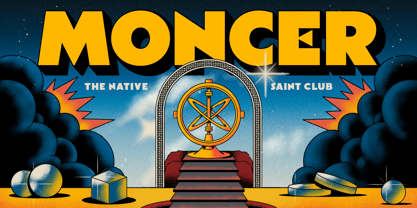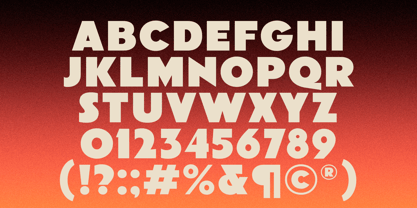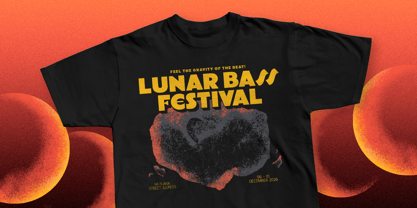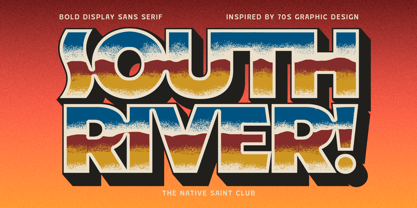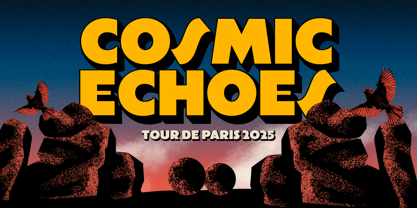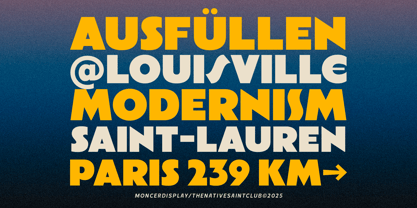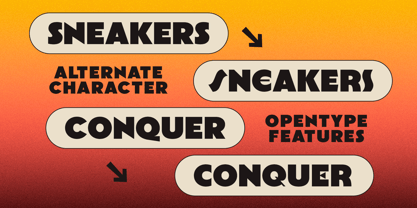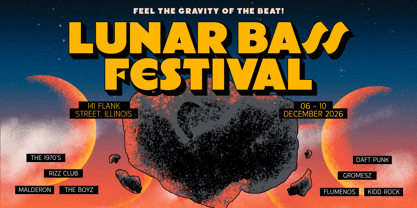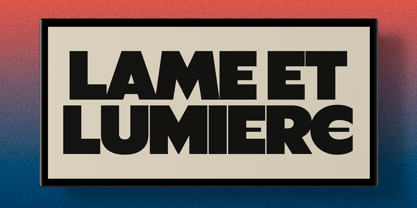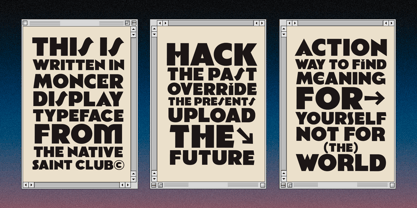
The Moncer Font Family was designed by Bagas Ferdiansah, Septianto Nugroho and published by The Native Saint Club. Moncer contains 2 styles and family package options.
TNSC Moncer –A bold and modern sans serif look inspired by the clean geometry of the Bauhaus movement. With strong, structured letterforms that are perfect for branding, posters, and packaging, this typeface combines simplicity that ensures high readability while standing out in any design. Perfect for logos or eye-catching headlines, this typeface is a blend of functionality, flexibility, and style.